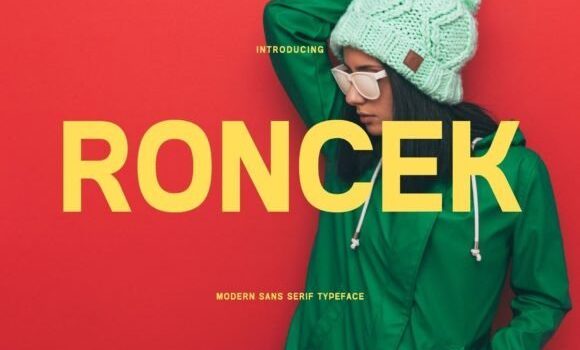
roncek
Roncek Font - Featured Image
Roncek Font – Free Download Introduction to Roncek Font Introducing “Roncek,” a modern and bold sans-serif font that makes a confident statement in any design. 📸 Preview Gallery 4 images 📌 Product Name Roncek Font 👤 Author Font Kingdom 📂